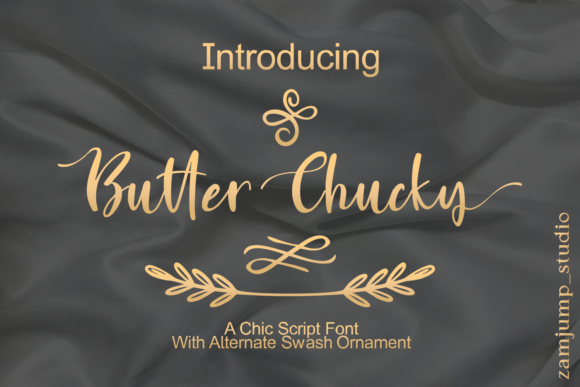
The Butter Chucky Font: A Delicate, Elegant Script for Creative Minds
The Butter Chucky font is a delicate, elegant, and flowing handwritten script that has become a staple in my design toolkit. Its beautiful, well-balanced characters make it an incredibly versatile font that can match a wide range of designs. In this article, I’ll share my honest review, provide a practical guide on how to use it, and explore similar fonts that you might love.
An Honest Review of Butter Chucky Font
- 💫 Delicate and elegant strokes that add a touch of sophistication to any design
- ✅ Well-balanced characters that ensure perfect harmony in your typography
- 🌈 A wide range of applications, from wedding invitations to branding and packaging
- 👍 Highly legible, even at smaller font sizes
While the Butter Chucky font is amazing, there are a few things to keep in mind:
- 🤔 It may not be the best choice for very long blocks of text, as it can become a bit tedious to read
- ⚠️ Some characters, like the uppercase letters, can be a bit ornate and may not work well in all design contexts
- Experiment with OpenType features, such as ligatures and stylistic alternates, to add more flair to your design
The Butter Chucky font was created by a talented type designer who wanted to craft a script that would evoke a sense of elegance and sophistication. Inspired by traditional calligraphy and handwritten scripts, the designer poured their heart and soul into creating a font that would be both beautiful and functional. 💫
Q: What is the Butter Chucky font best used for?
A: The Butter Chucky font is ideal for designs that require a touch of elegance and sophistication, such as wedding invitations, branding and packaging, and titles or headlines.
Q: Is the Butter Chucky font available in different weights or styles?
A: Currently, the Butter Chucky font is available in a single weight. However, some font variations may offer additional styles or weights.